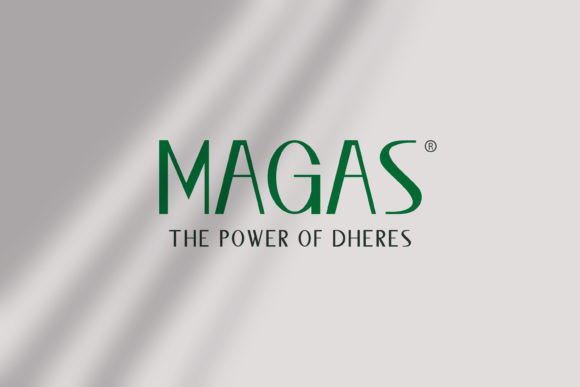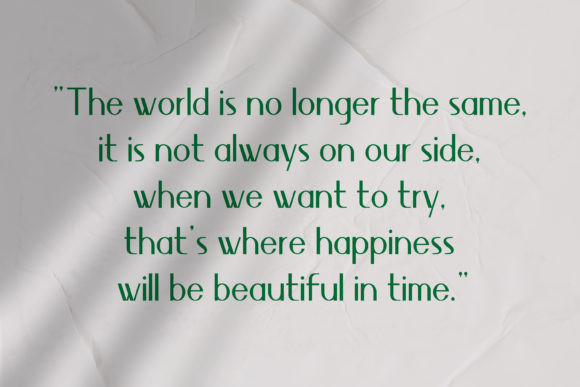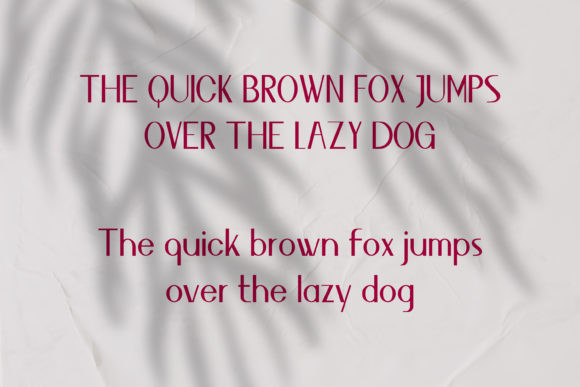
Magas Font
Magas is a modern and elegant sans serif font. Simple and easy to use, this font will be very beautiful if you mix it with your various craft designs.